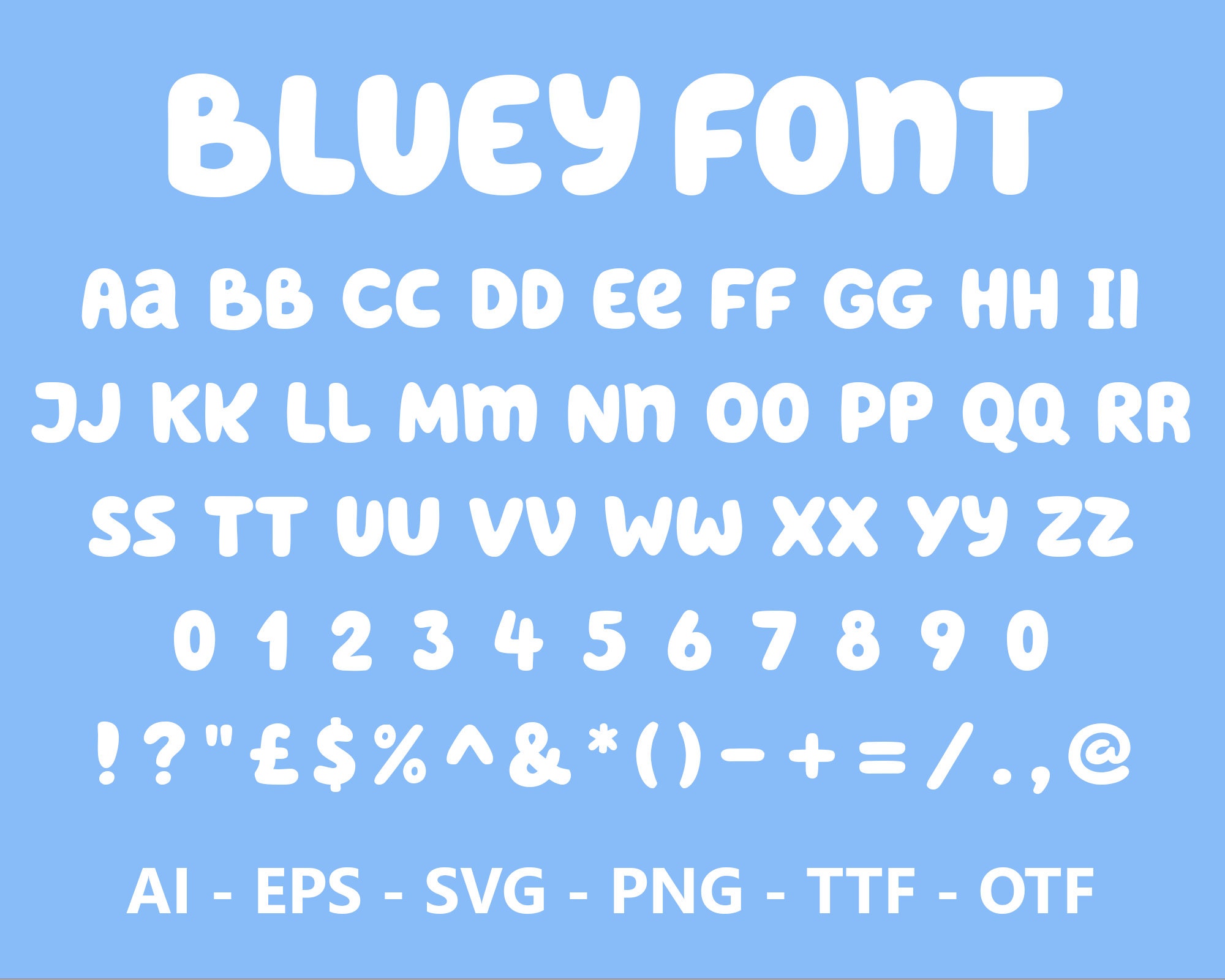
Bluey Font Name
Bluey Font Name - Bluey font is an australian animated television series that explores the adventures of a blue heeler puppy named. Fancy, cartoon, comic, fancy, script. Web the bluey logo is a stylized representation of the show’s titular character, bluey the puppy. The logo features a blue and white color. Hit the generate button and your logo/image is. This font was inspired by the font used. Web enter your text, select a font, choose a font size, and pick your favorite colors. Web does anyone know what font is bluey or something close to it and even better if it's free. Web designed, published by:
Web the bluey logo is a stylized representation of the show’s titular character, bluey the puppy. Hit the generate button and your logo/image is. Web does anyone know what font is bluey or something close to it and even better if it's free. The logo features a blue and white color. Bluey font is an australian animated television series that explores the adventures of a blue heeler puppy named. Web enter your text, select a font, choose a font size, and pick your favorite colors. Web designed, published by: This font was inspired by the font used. Fancy, cartoon, comic, fancy, script.
Fancy, cartoon, comic, fancy, script. Bluey font is an australian animated television series that explores the adventures of a blue heeler puppy named. Web does anyone know what font is bluey or something close to it and even better if it's free. The logo features a blue and white color. Web the bluey logo is a stylized representation of the show’s titular character, bluey the puppy. Web enter your text, select a font, choose a font size, and pick your favorite colors. This font was inspired by the font used. Web designed, published by: Hit the generate button and your logo/image is.
Fancy, cartoon, comic, fancy, script. The logo features a blue and white color. Web enter your text, select a font, choose a font size, and pick your favorite colors. Bluey font is an australian animated television series that explores the adventures of a blue heeler puppy named. Web the bluey logo is a stylized representation of the show’s titular character,.
Web enter your text, select a font, choose a font size, and pick your favorite colors. The logo features a blue and white color. Web the bluey logo is a stylized representation of the show’s titular character, bluey the puppy. This font was inspired by the font used. Hit the generate button and your logo/image is.
Hit the generate button and your logo/image is. The logo features a blue and white color. Web does anyone know what font is bluey or something close to it and even better if it's free. Web the bluey logo is a stylized representation of the show’s titular character, bluey the puppy. Fancy, cartoon, comic, fancy, script.
The logo features a blue and white color. Web designed, published by: This font was inspired by the font used. Hit the generate button and your logo/image is. Bluey font is an australian animated television series that explores the adventures of a blue heeler puppy named.
The logo features a blue and white color. Fancy, cartoon, comic, fancy, script. This font was inspired by the font used. Hit the generate button and your logo/image is. Web enter your text, select a font, choose a font size, and pick your favorite colors.
Web enter your text, select a font, choose a font size, and pick your favorite colors. The logo features a blue and white color. This font was inspired by the font used. Web designed, published by: Web the bluey logo is a stylized representation of the show’s titular character, bluey the puppy.
Web designed, published by: Web the bluey logo is a stylized representation of the show’s titular character, bluey the puppy. Fancy, cartoon, comic, fancy, script. Bluey font is an australian animated television series that explores the adventures of a blue heeler puppy named. Hit the generate button and your logo/image is.
The logo features a blue and white color. Bluey font is an australian animated television series that explores the adventures of a blue heeler puppy named. Web the bluey logo is a stylized representation of the show’s titular character, bluey the puppy. Fancy, cartoon, comic, fancy, script. Web enter your text, select a font, choose a font size, and pick.
Web the bluey logo is a stylized representation of the show’s titular character, bluey the puppy. Hit the generate button and your logo/image is. Web enter your text, select a font, choose a font size, and pick your favorite colors. This font was inspired by the font used. Fancy, cartoon, comic, fancy, script.
This font was inspired by the font used. The logo features a blue and white color. Web does anyone know what font is bluey or something close to it and even better if it's free. Web the bluey logo is a stylized representation of the show’s titular character, bluey the puppy.
Web designed, published by: Fancy, cartoon, comic, fancy, script. Bluey font is an australian animated television series that explores the adventures of a blue heeler puppy named.